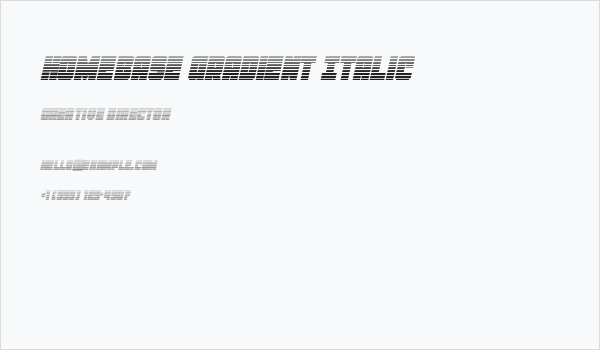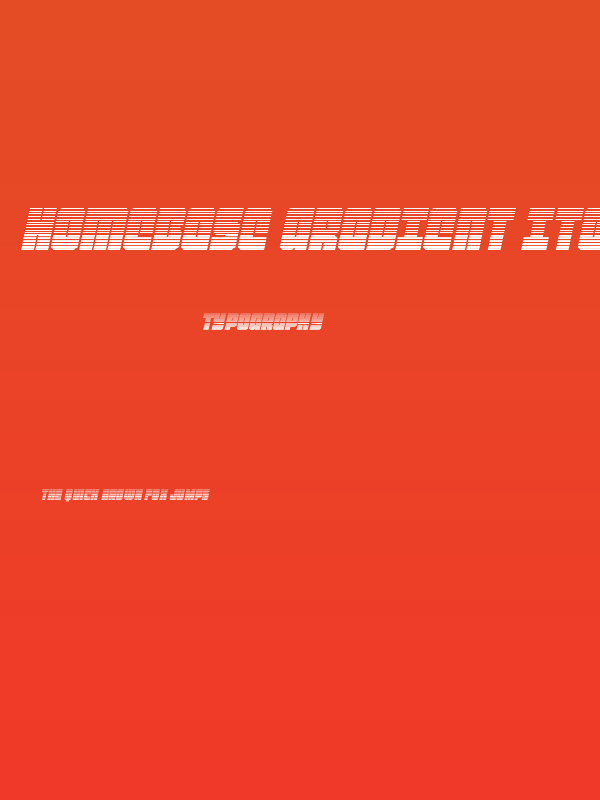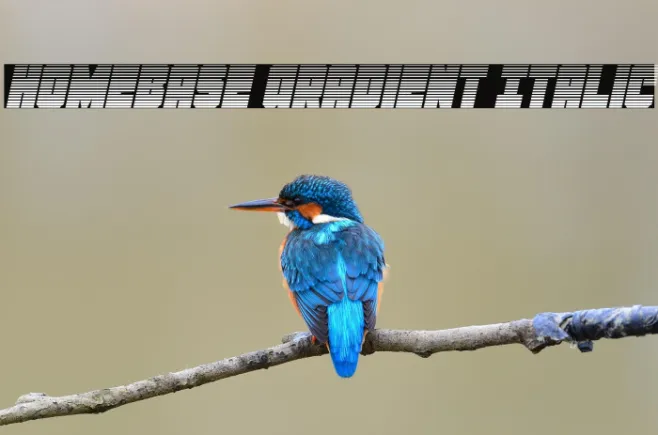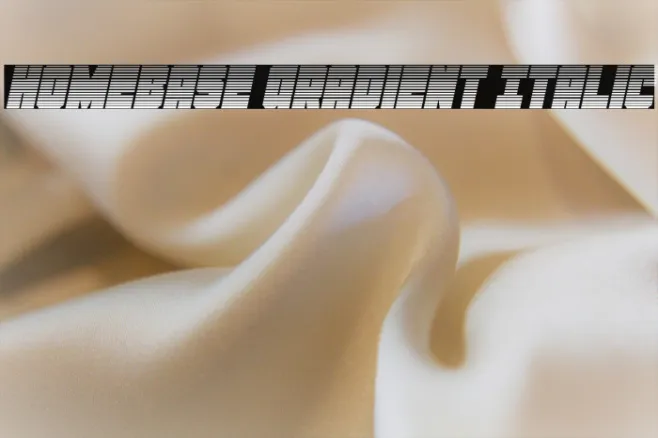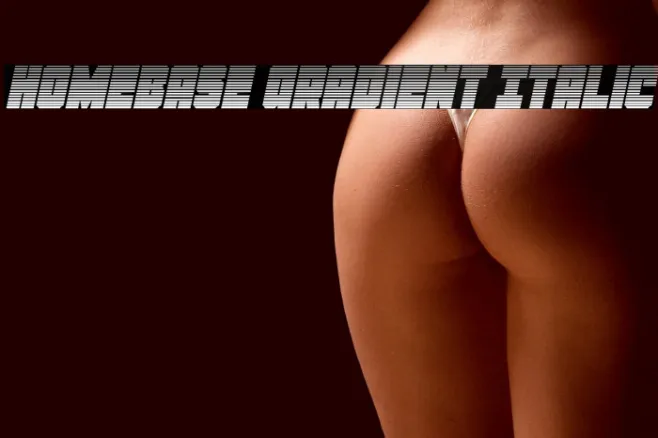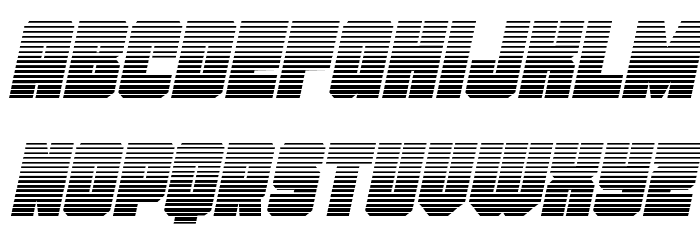
Homebase Gradient Italic Font
Homebase Gradient Italic Description
This font features a bold, italicized style with a distinctive gradient effect created by horizontal lines. The characters are wide and have a strong presence, making them ideal for attention-grabbing designs. The uppercase and lowercase letters maintain a consistent width, contributing to a uniform appearance. The numbers and special characters are designed to match the boldness of the letters, ensuring a cohesive look across all text elements. The gradient effect adds a modern and dynamic touch, making this font suitable for contemporary projects.
| Proposed Projects | Ideal for modern posters, digital artwork, branding, and headlines that require a bold and dynamic appearance. |